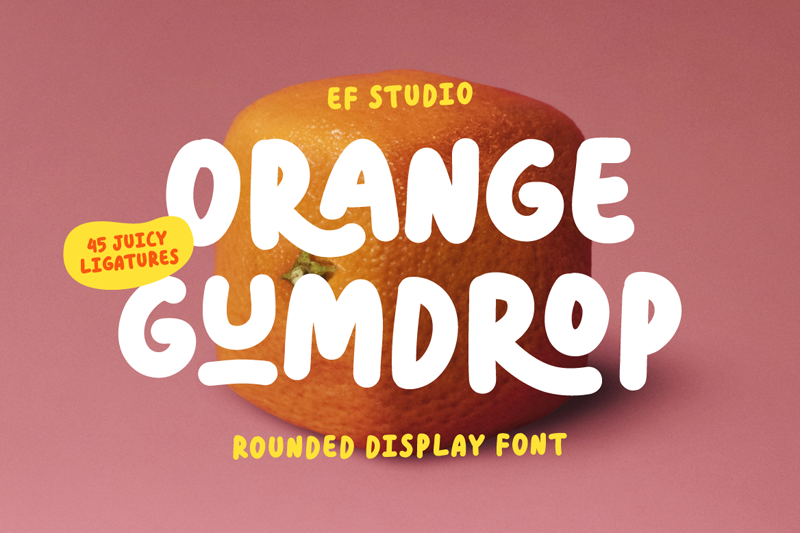
Orange Gumdrop
NOTE: This font is for PERSONAL USE ONLY. To obtain a commercial license, please visit: https://efstudiotype.com/orange-gumdrop/ Orange Gumdrop is a playful display font shaped by soft curves, rounded terminals, and subtly uneven details that give it a warm, hand-touched feel. Friendly, bold, and easy to read at large sizes, it naturally draws attention without feeling heavy. Perfect for food and lifestyle branding, posters, packaging, editorials, and social media visuals, adding personality while staying approachable and fun. Full ligatures are available in the commercial version. Features • Uppercase & Lowercase • Numerals & basic punctuation • Standard ligatures & alternates • OpenType features • Multilingual support (basic Latin) For any inquiries, feel free to contact us at: efstudio2@gmail.com mailto:efstudio2@gmail.com